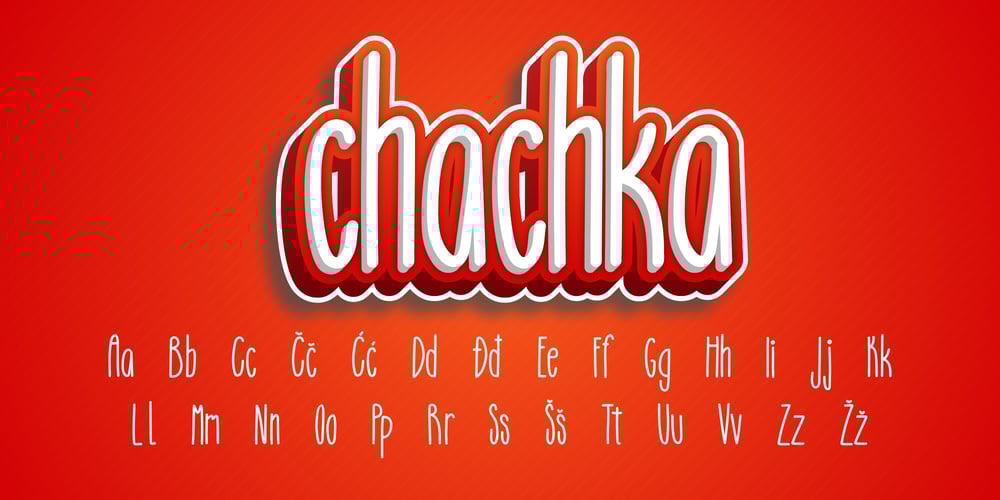
Chachka
Chachka font
Chachka Font Family was designed by Korina Ho and published by Slonica. Chachka contains 1 styles and family package options. Natural forms inspired us to design this font. A very simple, cute and somewhat playful font. The use of this font is various, and we would especially recommend it when the design requires the theme of nature and health.